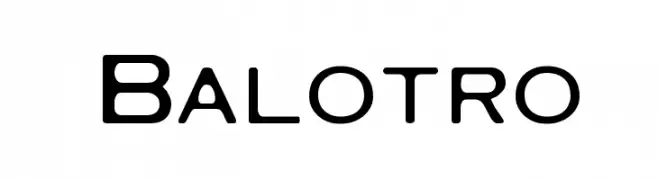
( ATRAX - antraxja-fonts.iweb.pl/en/ )
A rugged, distressed font with a bold, organic appearance.
( Annie de la Vega )
A modern, clean font with rounded edges and consistent stroke width.
( Annie de la Vega )
A bold, playful font with a three-dimensional outline effect.
( Annie de la Vega )
A bold slab serif font with strong, block-like serifs and a robust appearance.
( Annie de la Vega )
A playful, hand-drawn font with bold, irregular characters.
( Dan Smith's Fantasy Fonts - www.acondia.com/fonts/index.html )
A bold, abstract font with geometric and artistic elements.
( Dan Smith's Fantasy Fonts - www.acondia.com/fonts/index.html )
A Celtic-inspired decorative font with sharp, angular serifs and a medieval flair.
( Dan Smith's Fantasy Fonts - www.acondia.com/fonts/index.html )
A bold, Celtic-inspired font with sharp, angular edges and a medieval aesthetic.
( Dan Smith's Fantasy Fonts - www.acondia.com/fonts/index.html )
A bold, geometric font with a modern and assertive style.
( Dan Smith's Fantasy Fonts - www.acondia.com/fonts/index.html )
A decorative, runic-inspired font with angular, geometric shapes.